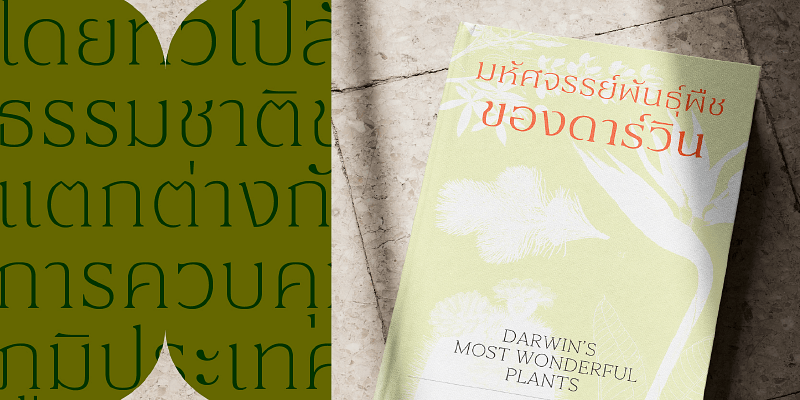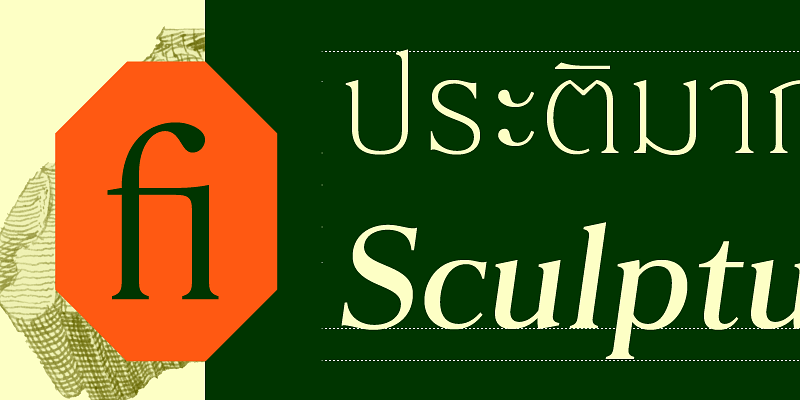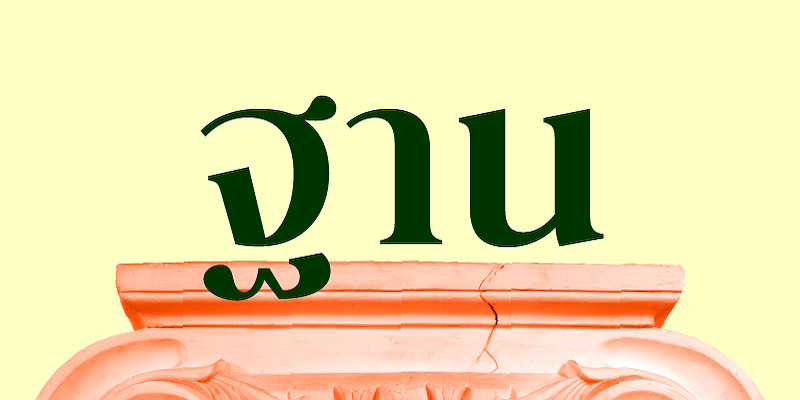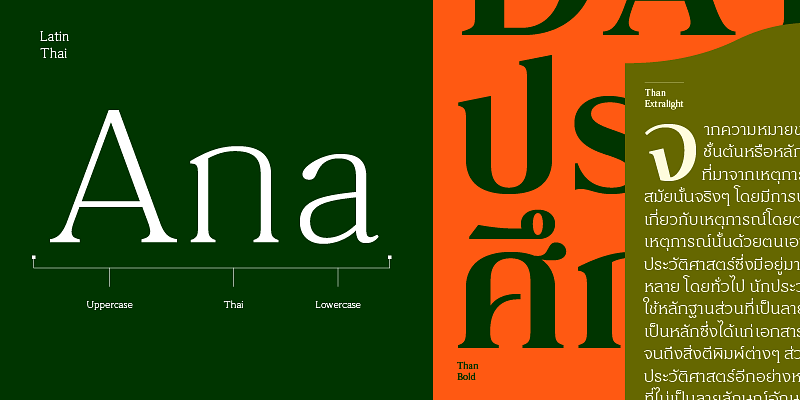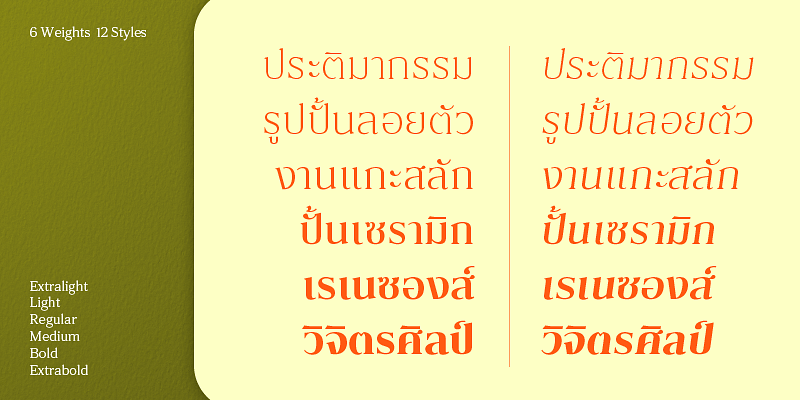
Than is a concealed looped typeface that has a low contrast. It is designed with the framework of both Thai and Latin characters, and is inspired by Transitional Latin characters. The serifs are made shorter, to be used more harmoniously with Thai characters and reduce confusion pairs such as koKai-thai (ก) or thoThung-thai (ถ). When Latin’s serif are applied onto Thai characters, the serifs became a concealed looped style. As a result, Than is suited for longer usage in Display contexts.